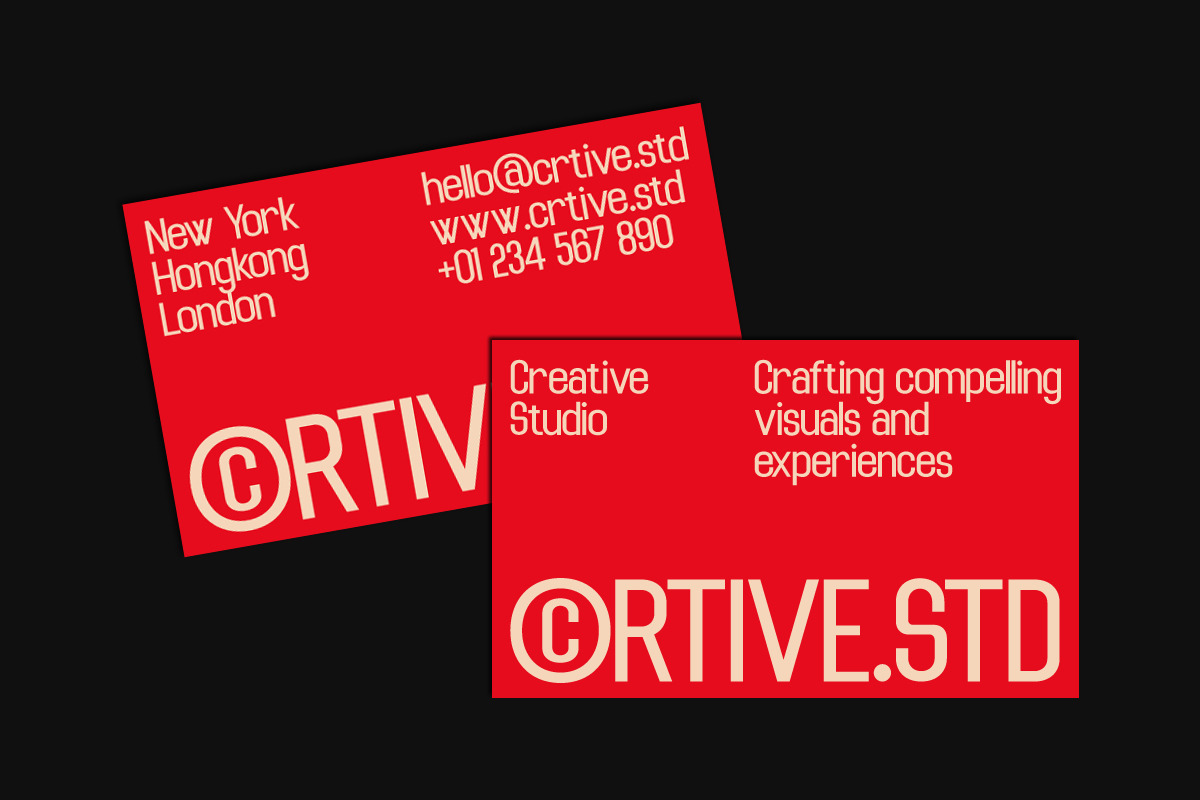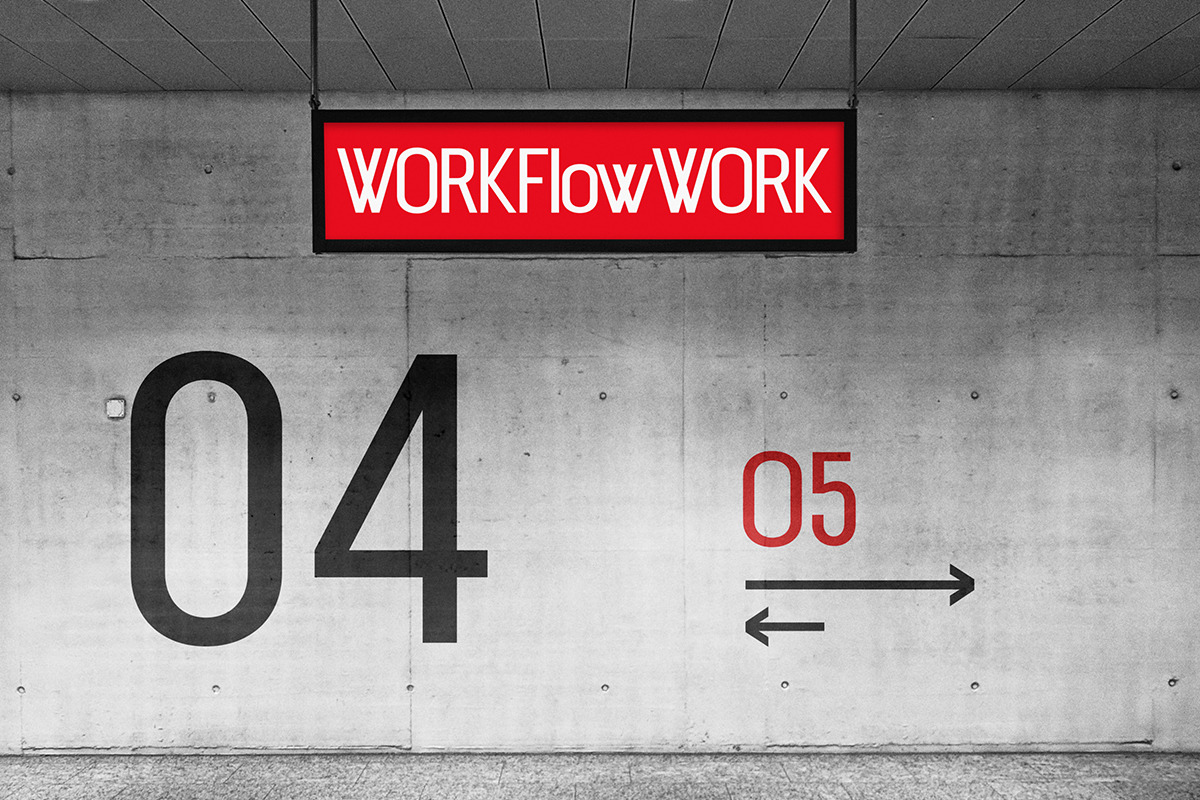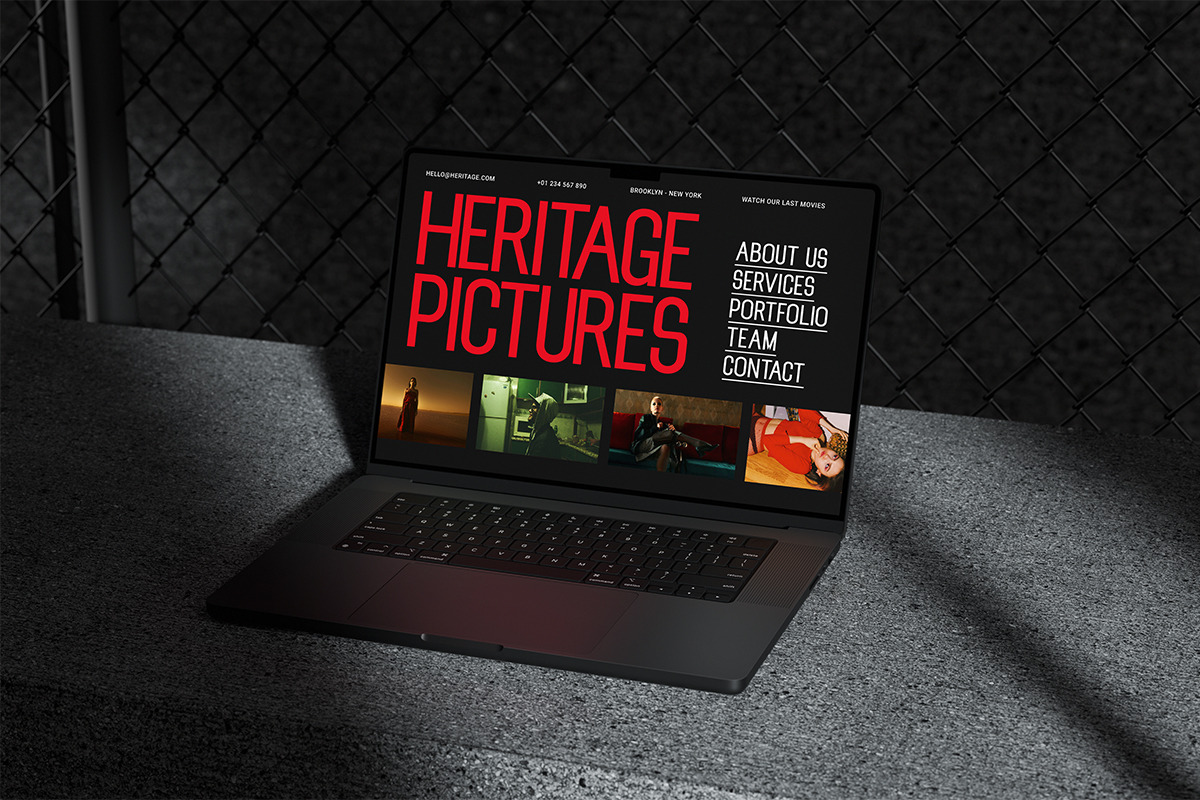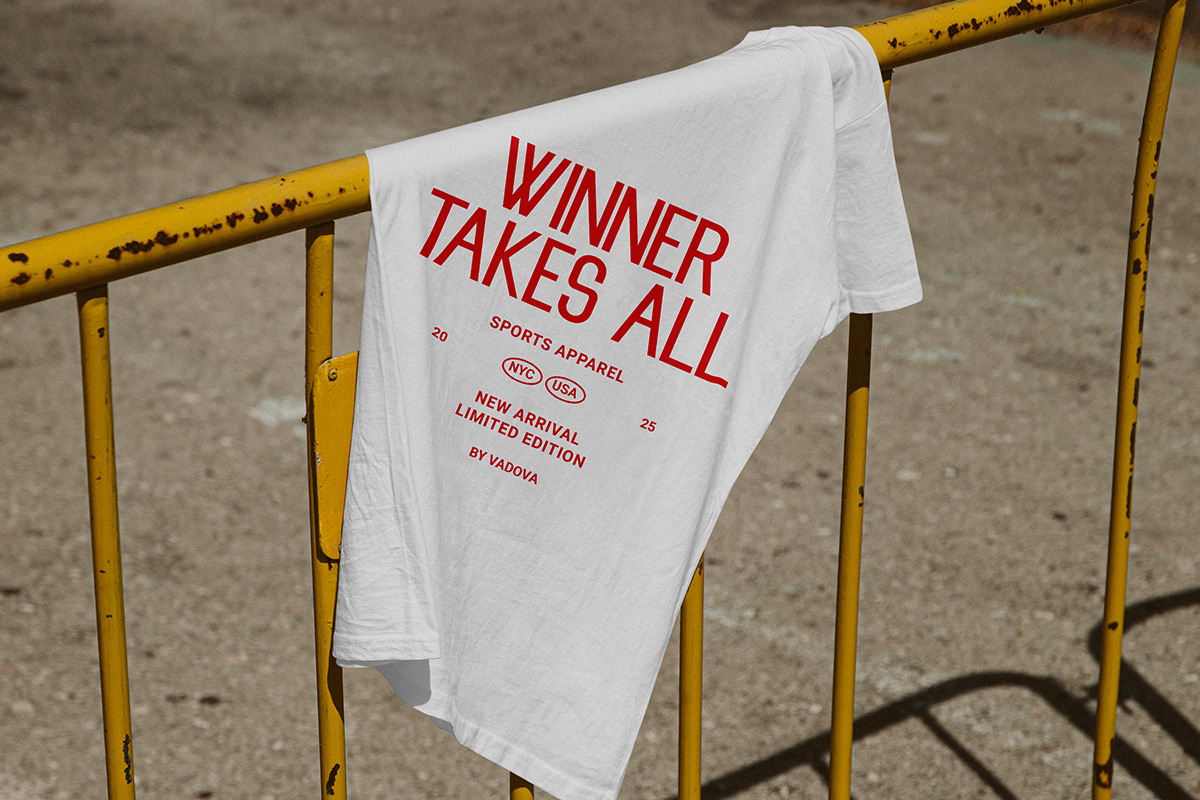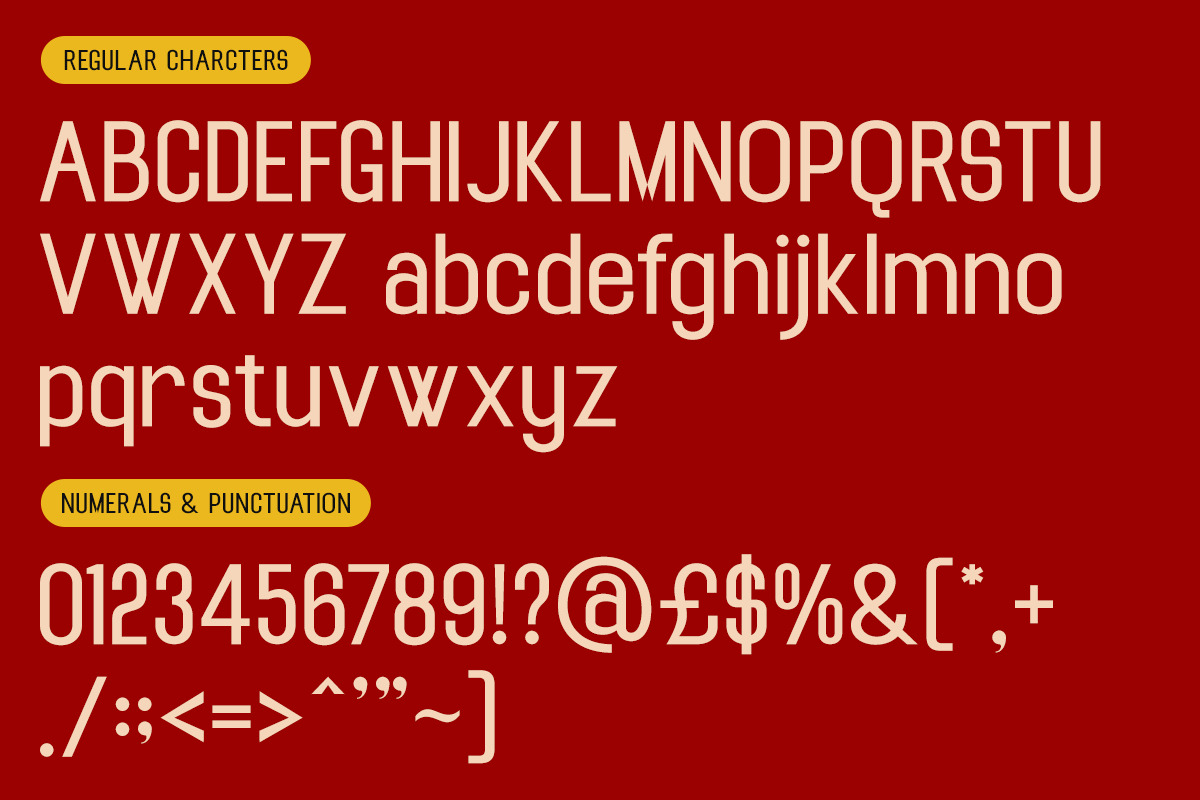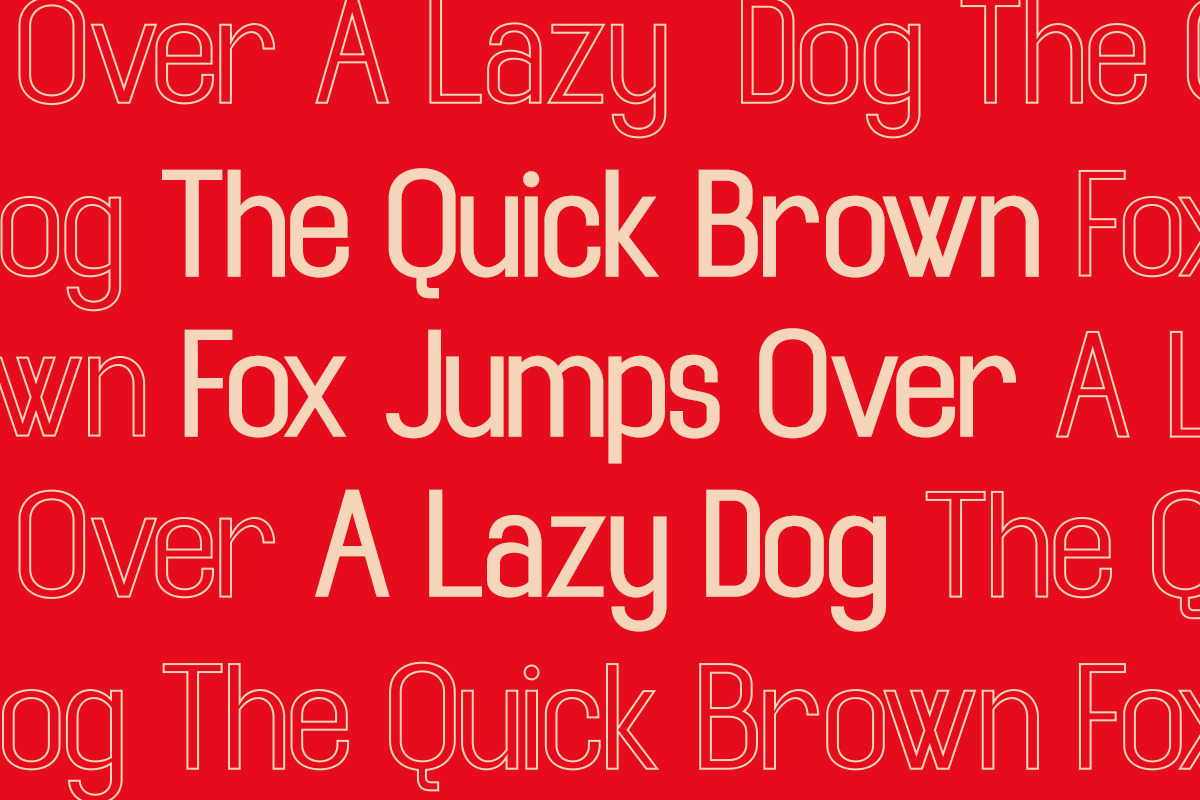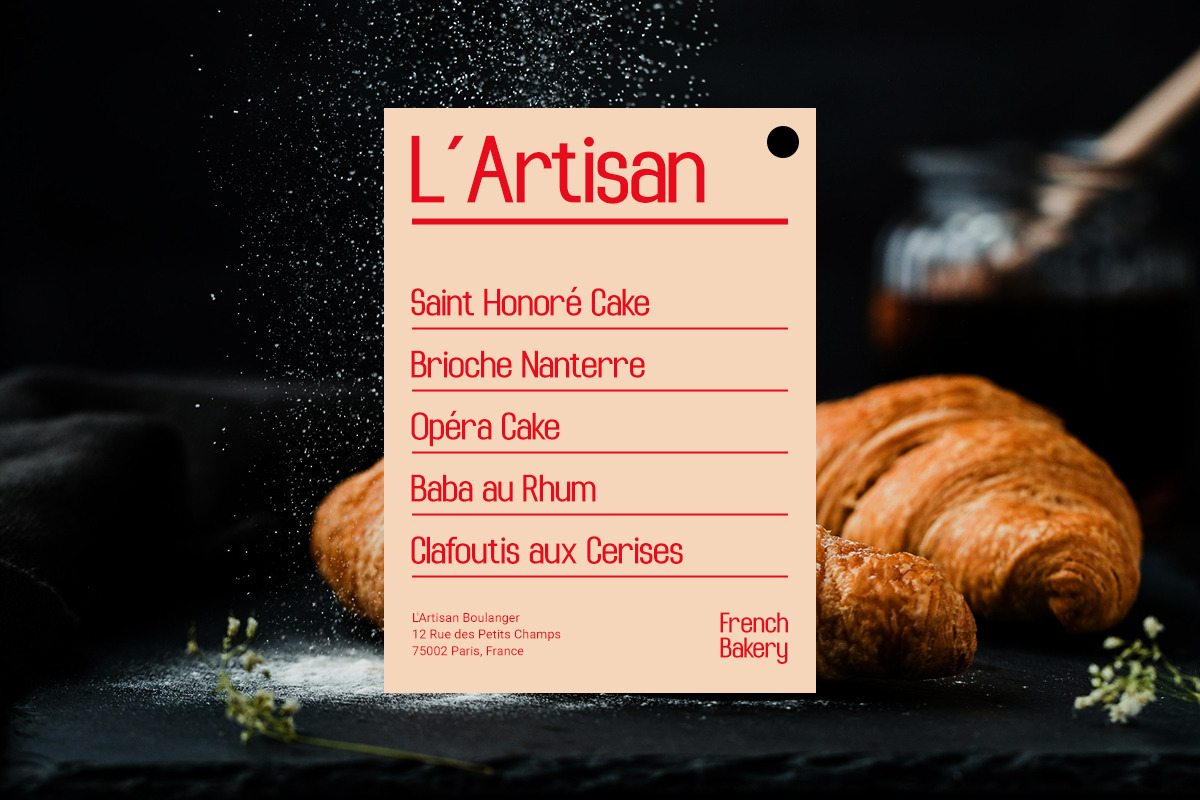
Tightrope – Condensed Sans Serif
Tightrope is a bold sans serif typeface defined by its condensed width and modern balance. Designed for clarity and impact, its narrow spacing and tall letterforms create a powerful sense of rhythm and movement—perfect for posters, titles, and branding projects that demand attention.
The font combines geometric discipline with a humanist touch, making it versatile across digital and print media. Tightrope’s visual tension and confident stance make it ideal for brands that value precision, creativity, and style.
Font Highlights
Condensed sans serif design
Uppercase & lowercase letters
Numerals and punctuation
Strong vertical proportion and narrow tracking
Perfect for headlines, branding, and modern layouts
Why Designers Love Tightrope
High Impact Design – Commands attention with narrow, bold spacing.
Modern Versatility – Works across digital, print, and advertising media.
Geometric Precision – Balanced structure that’s sleek yet readable.
Confident Character – Ideal for visual storytelling and bold identity work.
Relevance and Use Cases
Relevance and Use Cases is perfect for posters, brand identities, editorial headlines, digital campaigns, music and movie titles, packaging design, and advertising layouts that need a striking, professional look.